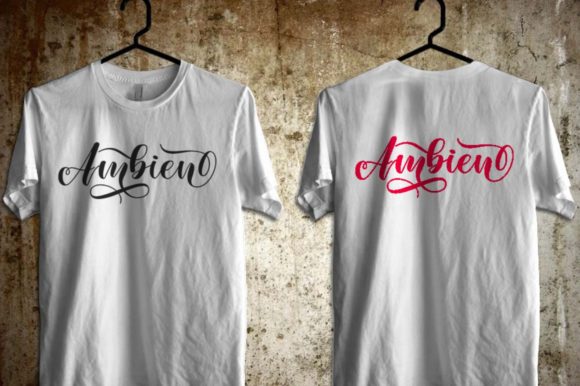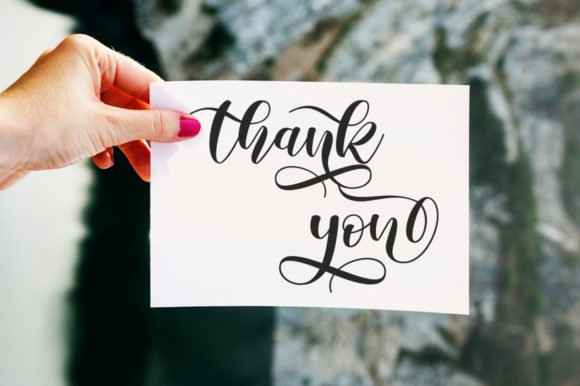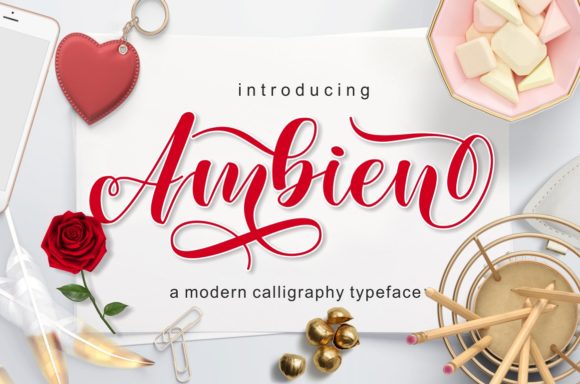
The Elusive Perfect Font: My Encounter with Ambien
I’ll never forget the design project that had me on the hunt for the perfect font. I was working on a luxury brand’s marketing materials, and my client was adamant that the font had to be elegant, yet modern; classy, yet fresh. I scoured font libraries, tried out countless combinations, but nothing seemed quite right. That was until I stumbled upon Ambien Font. 💫
First Impressions: A Love Affair with Ambien
As soon as I laid eyes on Ambien, I knew I had found “the one.” This elegant and flowing handwritten font swept me off my feet with its beautiful, varying baseline, smooth lines, and gorgeous glyphs. The fact that it’s PUA encoded was the cherry on top – easy access to all the glyphs and swashes I needed. ✨
So, what do I love about Ambien? Here are a few highlights:
- ✅ Elegant and modern feel: Perfect for luxury brands, high-end products, or sophisticated designs.
- ✅ PUA encoded: Easy access to glyphs, swashes, and alternates.
- ✅ Classy calligraphic influences: Adds a touch of sophistication to any design.
- ✅ Contemporary and fresh: Keeps your designs feeling current and on-trend.
And, as with any font, there are a few small quirks to be aware of:
- ⚠️ Some characters may require manual kerning: For optimal results, take a little extra time to adjust kerning.
- 🤔 May not be suitable for very small text sizes: Due to its elegant nature, Ambien shines best in larger text sizes.
The Story Behind Ambien: Designer Inspiration
Ambien Font was crafted with love and care by a talented designer who sought to create a font that exudes elegance and sophistication. Inspired by the beauty of handwritten calligraphy, Ambien brings a touch of luxury to any design project. While the real story behind Ambien’s creation may be a mystery, its designer’s passion for typography and commitment to quality shine through in every detail.
Q: Is Ambien suitable for body text or long-form content?
A: While Ambien is an exquisite font, it’s best suited for headings, titles, and short-form content. For body text or long-form content, a more legible font may be more suitable.